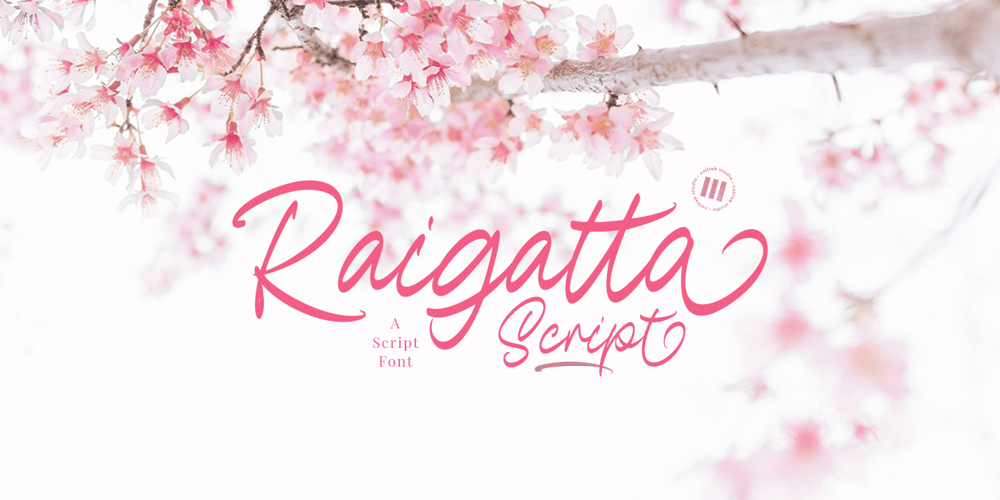
Raigatta Script Font Family was designed by Muh. Aswar and published by Colllab Studio. Raigatta Script contains 1 styles and family package options. Presenting Raigatta Script! An authentic script font with Alternates and Extra. This font made with the perfect combination of each character. You can combine with aLternates and extra to get a unique combination. It looks original and can be used for all your project needs. Each glyph has its own uniqueness and when meeting with others will provide dynamic and pleasing proximity. This font can be used at any time and in any project. You can see in the presentation picture above, Raigatta Script looks unique and so flow style on design projects.So, Raigatta Script Font can’t wait to give its touch to all your design projects such as quotes, weddings, Japanese theme design, poster design, personal branding, promotional materials, website, logotype, product packaging, etc.WHAT’S INCLUDED? Raigatta Regular • It comes with uppercase, lowercase, ligatures, numeral, punctuation, symbols, Many Ligatures, Alternates, and Standard Latin Multilingual Support (Afrikaans, Albanian, Catalan, Danish, Dutch, English, French, German, Icelandic, Indonesian, Italian, Malay, Norwegian, Portuguese, Spanisch, Swedish, Zulu, and More). Raigatta Stylish Alternate • It comes with uppercase and lowercase. Just access using Opentype Feature or Characters Map Tool. Raigatta Alternate Ending Swash • It comes with lowercase only. Just access using Opentype Feature or Characters Map Tool. Extra Swashes • Included 12 Underline Swashes. You can feature all with typing c_1 until c_12. Just access using Opentype Feature or Characters Map Tool. A Million ThanksColllab Studio